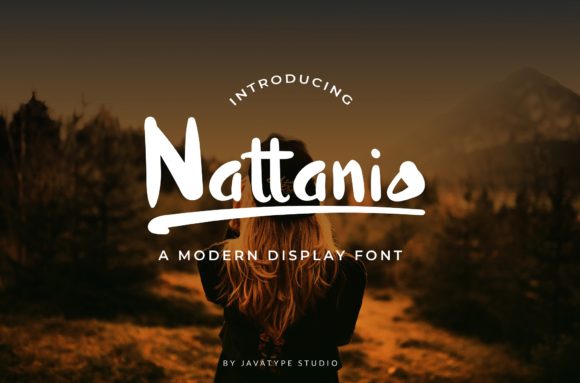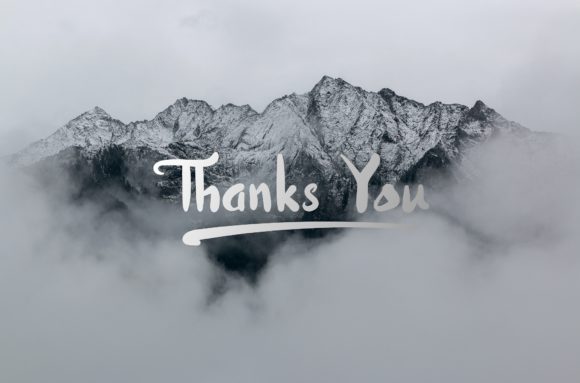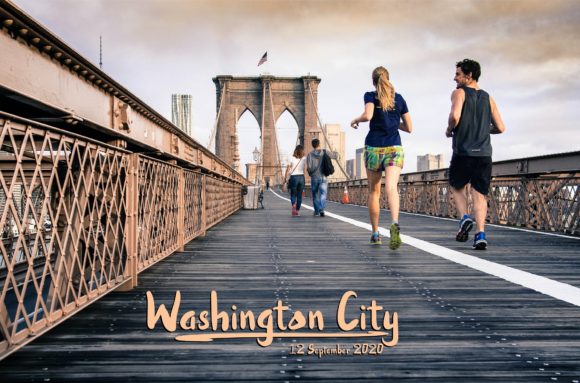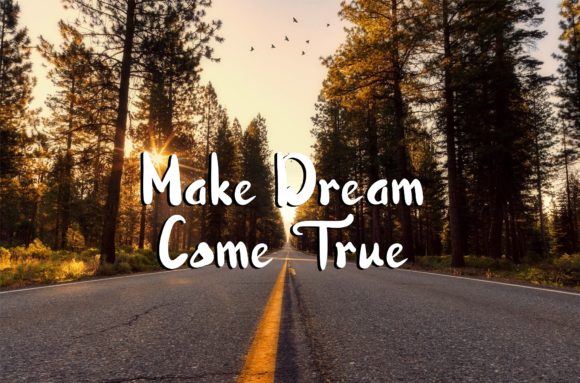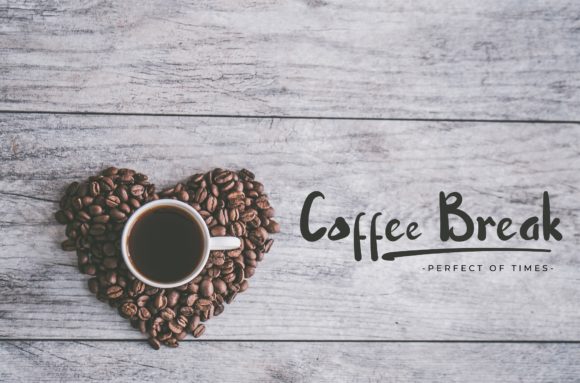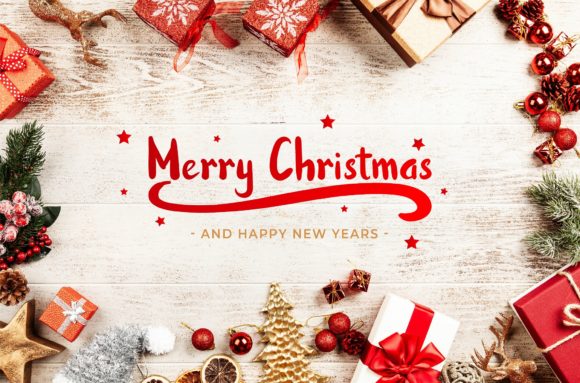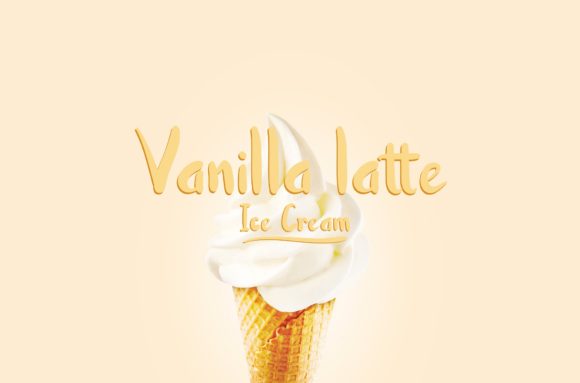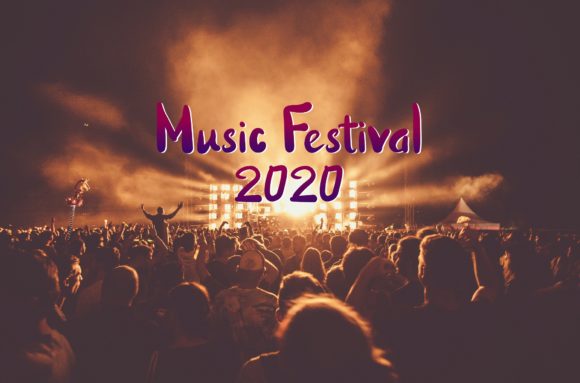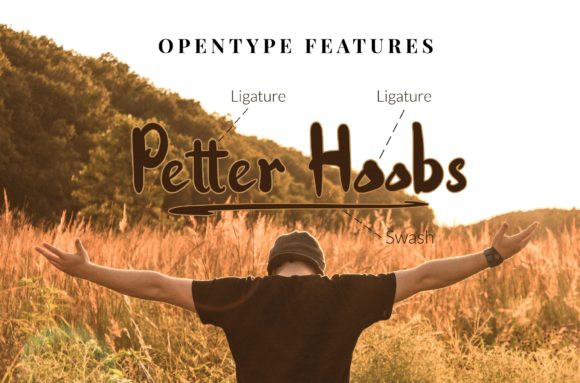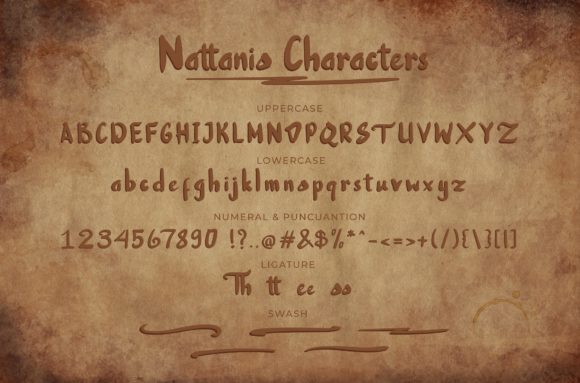
Nattanio Font
About Nattanio Font
“Nattanio” emerges as a sweet and boldly lettered handwritten font, defined by its thick and charming style that seamlessly adapts to a myriad of designs. This font exudes an air of sweetness that invites you to explore its creative potential, guiding you to craft an array of stunning creations including wedding invitations, stationary art, eye-catching social media posts, and beyond.
What sets “Nattanio” apart is its unique blend of thickness and charm. Each meticulously crafted letter carries an aura of authenticity, reminiscent of handcrafted artistry with a touch of boldness. With every stroke, “Nattanio” weaves a narrative of friendliness and boundless creative possibilities.
Visualize the transformative power of “Nattanio” across a variety of designs—a luxurious wedding invitation brought to life by the font’s elegant script, setting the tone for an unforgettable celebration. Picture the font gracing a chic boutique’s branding, infusing the identity with a touch of flair. The font’s versatility effortlessly enhances diverse contexts, enriching your projects with an element of enduring artistry.
The natural charisma of “Nattanio” is magnetic, akin to a bold statement that captivates the eye. Its letters exude confidence, imparting a sense of impact that elevates the overall design. The font carries an aura of timeless appeal, encouraging creators to embark on a journey of artistic exploration.
Designers and enthusiasts alike will undoubtedly be captivated by the sweet allure of “Nattanio.” Its adaptability transcends conventions, making it an indispensable tool for various projects. Beyond being a mere font, “Nattanio” evolves into a medium of expression, allowing creators to infuse their work with a touch of bold elegance.
In essence, “Nattanio” stands as a testament to the artistry that typography can encompass. Its sweet and thick lettered charm beckons you to delve into the realm of design, transforming your ideas into tangible creations that embody both boldness and grace. As you navigate the realms of creativity, let “Nattanio” be your guiding companion, leading you to craft designs that reflect the essence of impact and create a lasting impact on every canvas, all while celebrating the richness of your creative imagination.